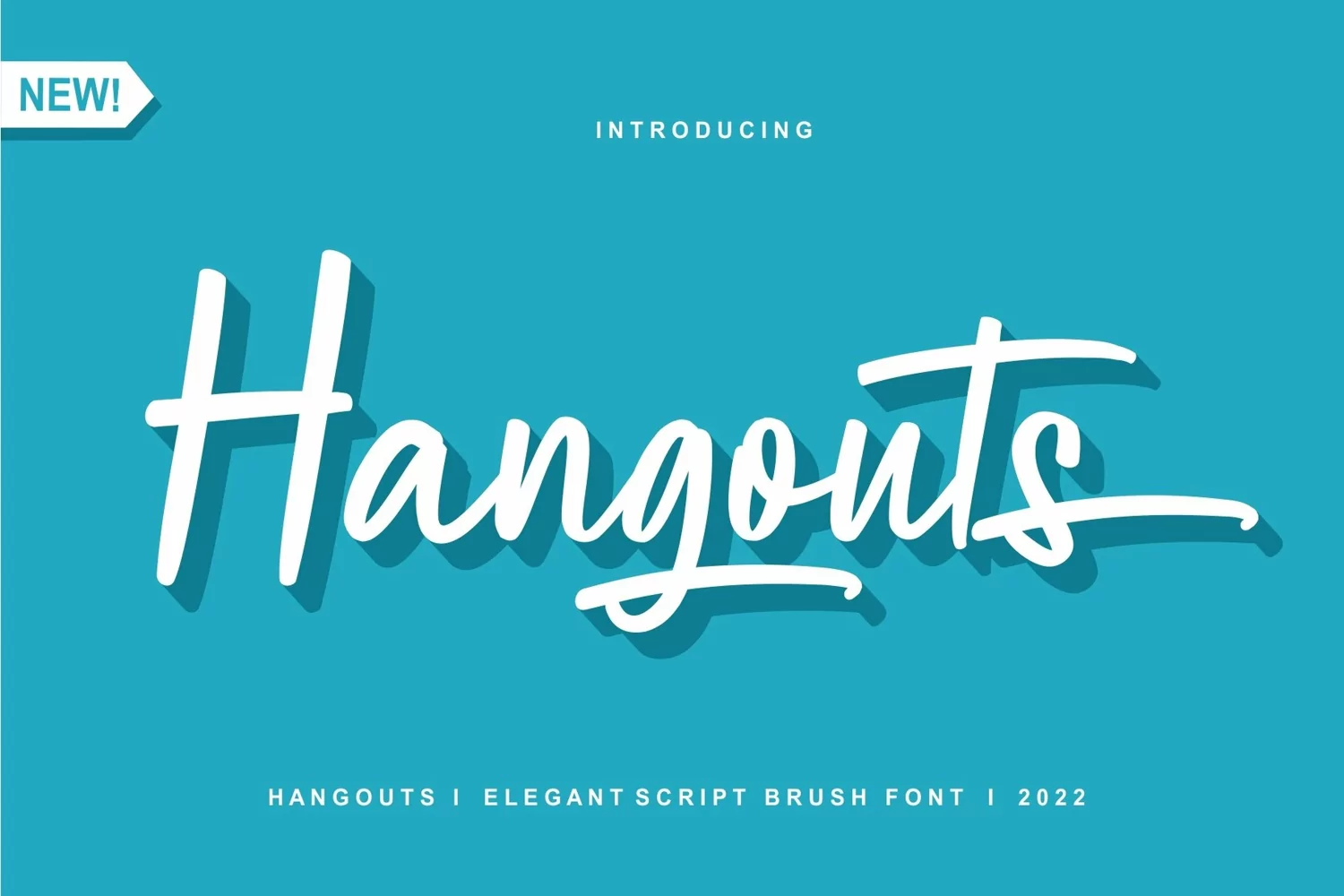
Hangouts - Elegant Brush Font
Hangouts is a brush Script font perfect for crafting, branding, invitation, stationery, wedding designs, social media posts, advertisements, product packaging, product designs, label, Posters, photography, special events, or anything.
Hangouts comes with a full set of uppercase and lowercase letters, ligatures, Stylistic Alternates, multilingual symbols, numerals, and punctuation.